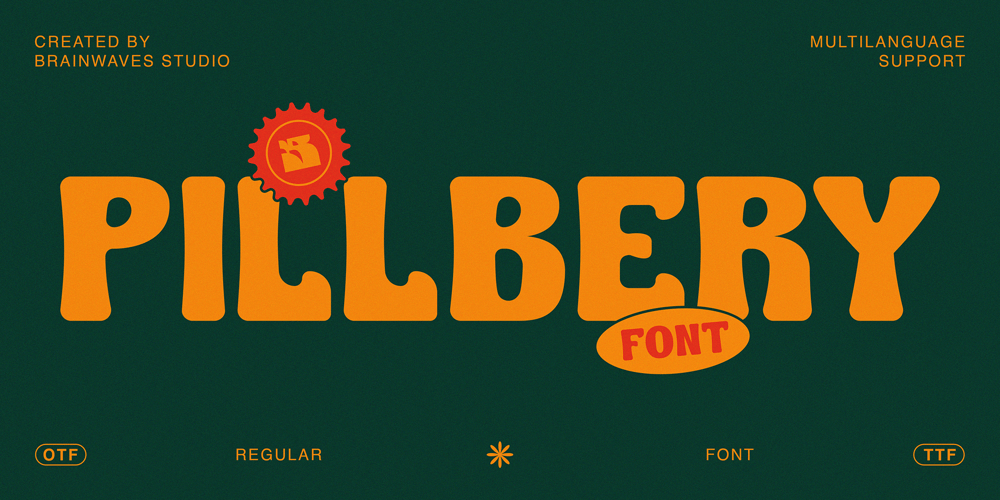
Pillbery Font Family was designed by Anggil Sukma and published by Brainwaves Studio. Pillbery contains 2 styles and family package options. This Is Our New Font Retro Display Phillberry, Phillberry Had A Taste Of Retro, Bold, Display, Minimalist Font. This Font Good For Logotype, Logo Text, Graphic Design For Retro Theme.More Lisence check our sitestudiobrainwaves.gumroad.com/l/PILLBERY